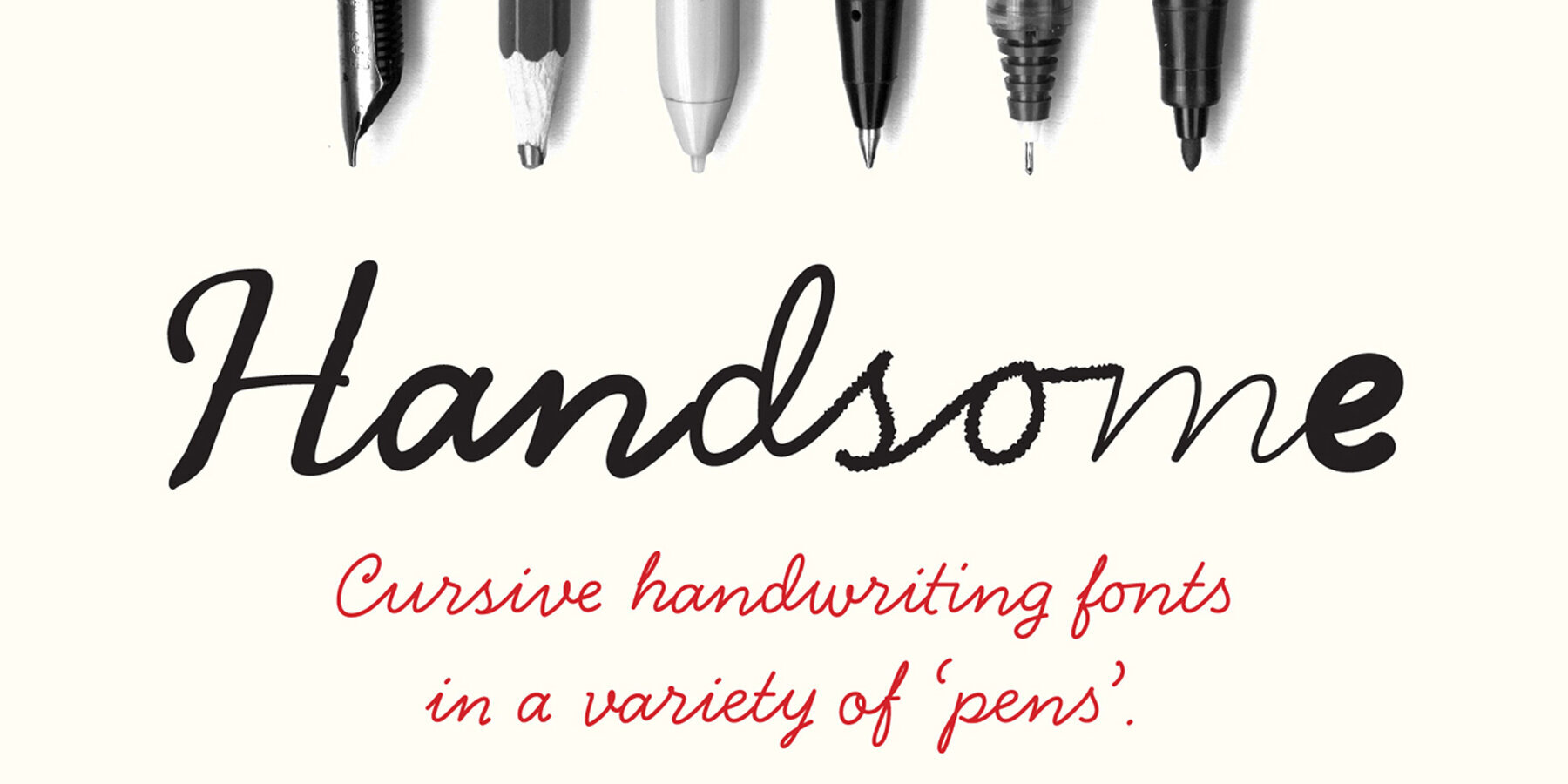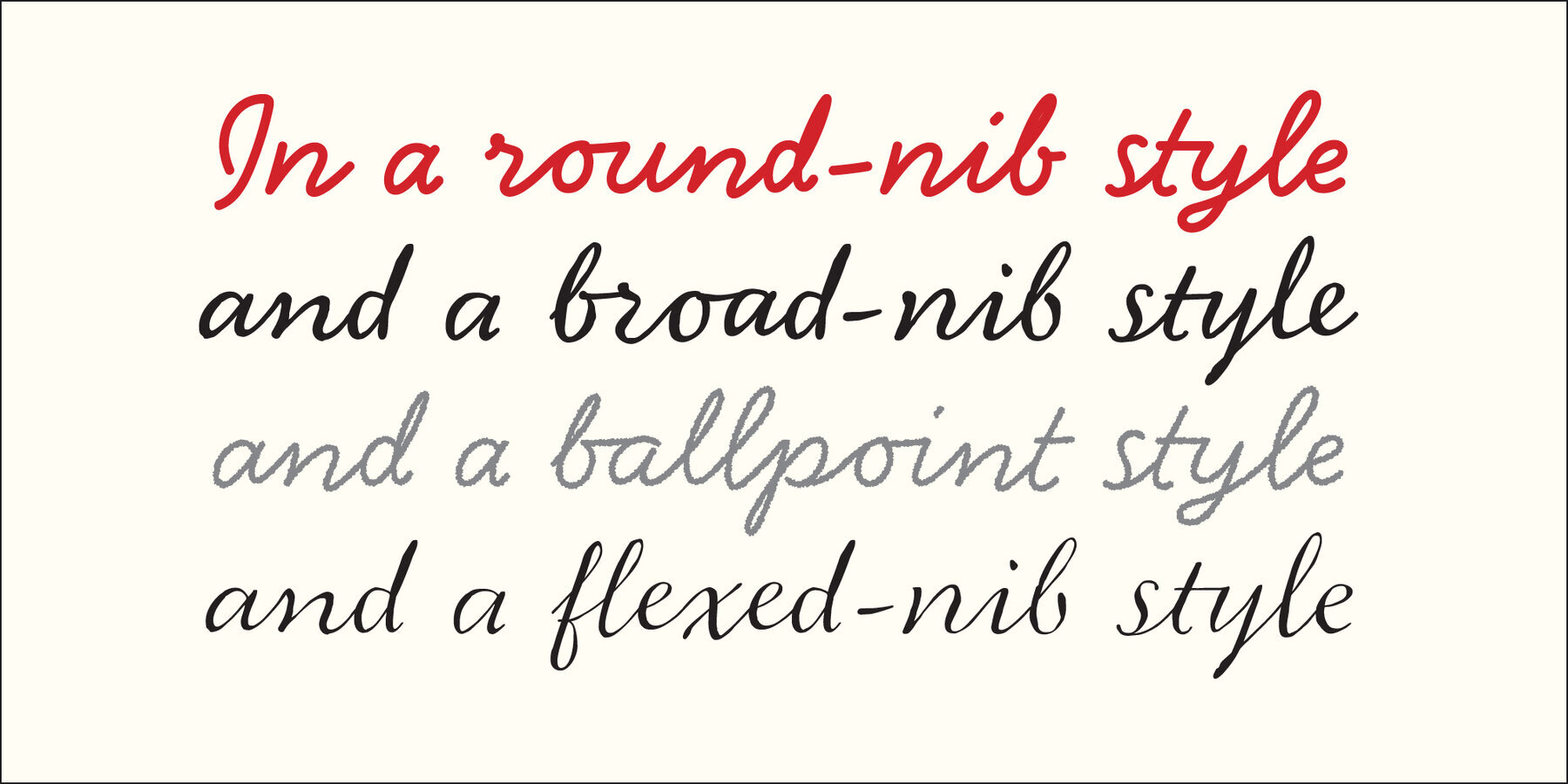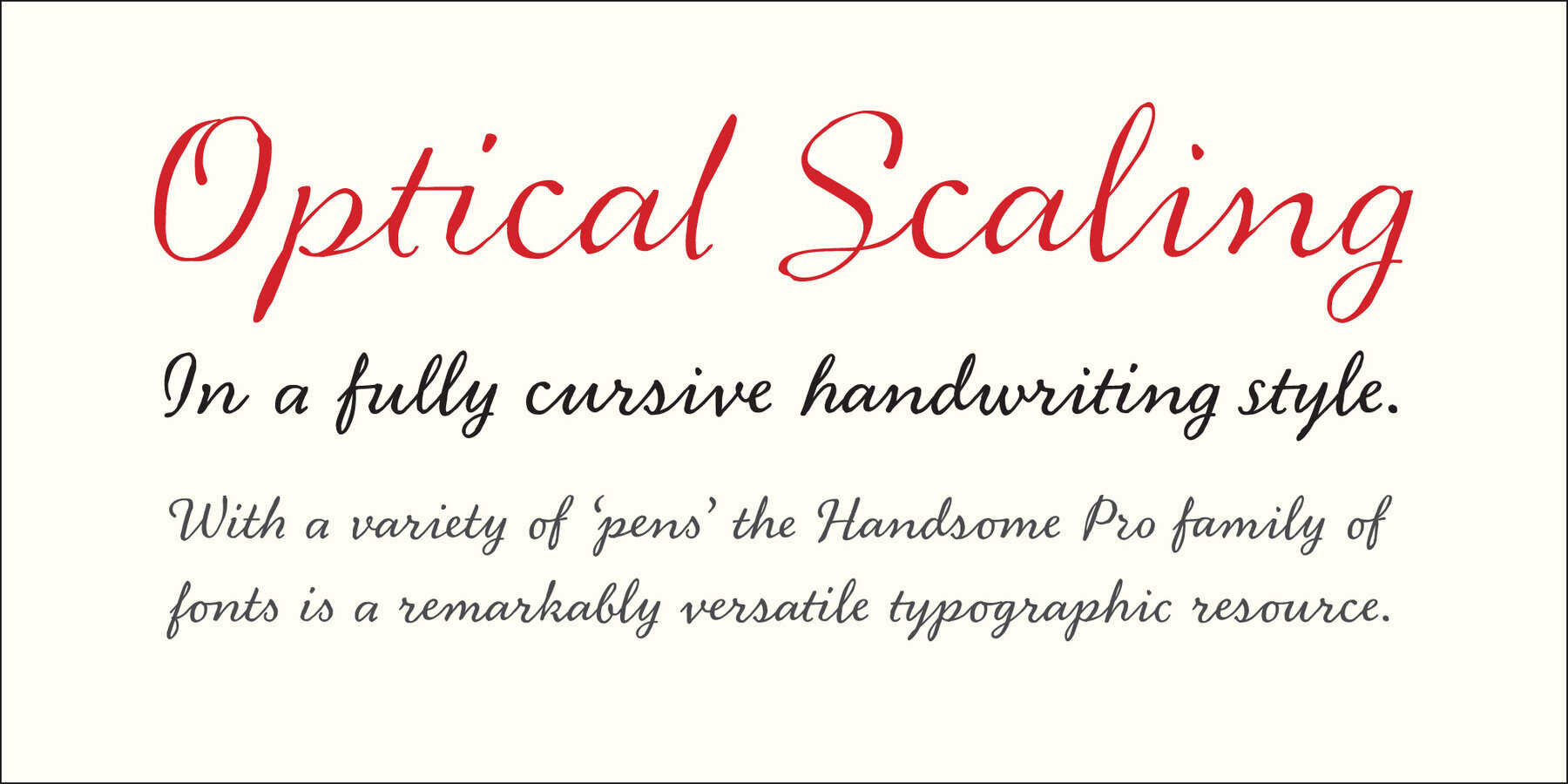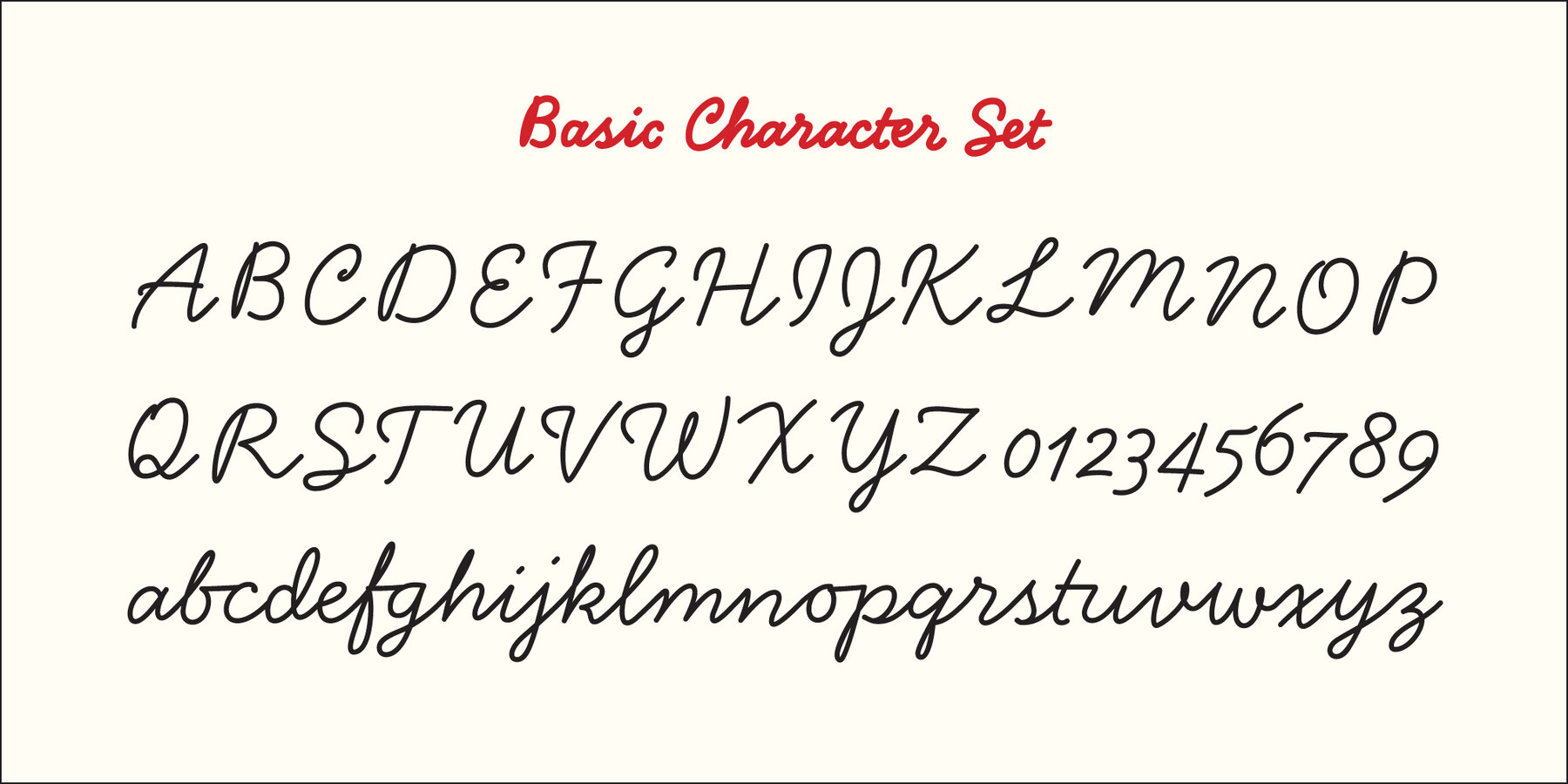
The digital font as biomimetic software, making robot writing that disguises its artifice behind a shifting cast of character alternates. In parroting the joining rules of cursive script Handsome holds a mirror to pen culture, revealing an affinity between the systematic structure of formal writing systems and the programmed logic of advanced digital typography.